As autumn approaches, event organizers and brands gear up for seasonal marketing campaigns. Whether you are designing party invitations, horror movie posters, or limited-edition packaging, selecting themed typography is essential. Using high-quality spooky fonts for halloween allows you to capture immediate attention.
Here is how you can use dark, atmospheric typefaces from Artisan Font to make your seasonal graphics stand out.
1. Expressive Spooky Typefaces for Party Posters
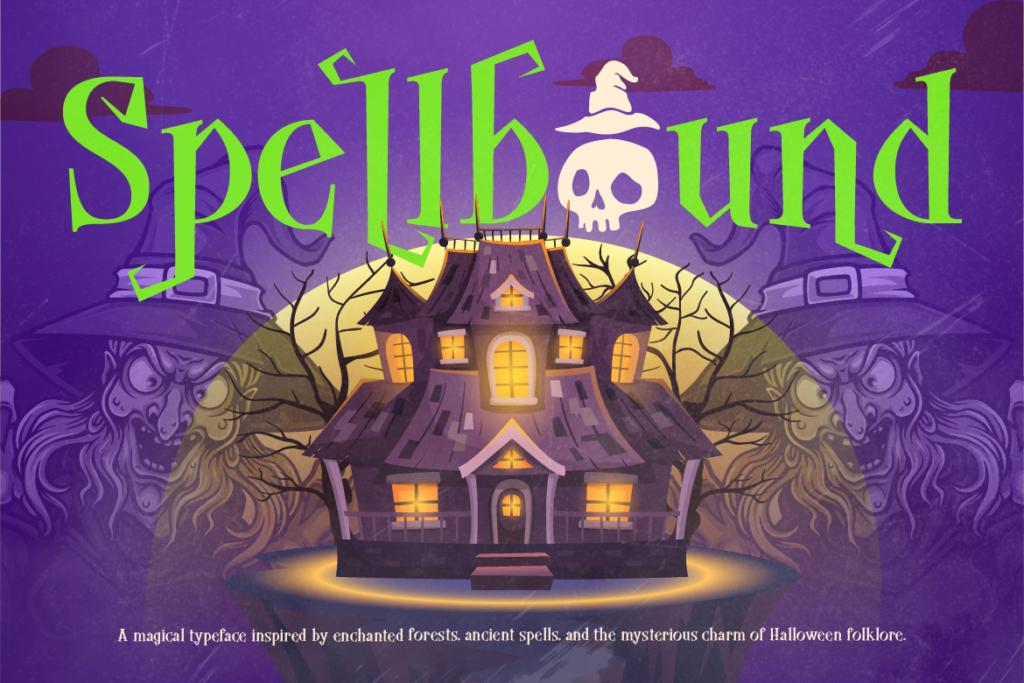
Seasonal flyers require bold, expressive headlines that communicate the theme instantly. A playful Halloween font like Madwitch features sharp, uncanny character shapes. For example, it works wonderfully for night club event flyers, haunted house posters, and seasonal social media banners.
2. Dark Blackletter Fonts for Mysterious Packaging
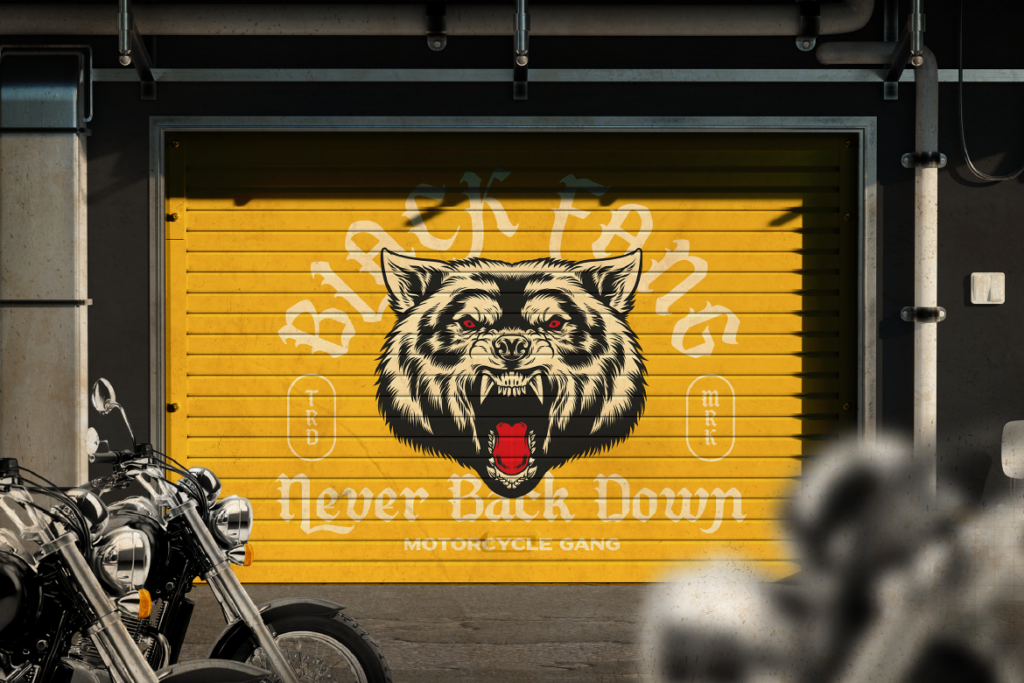
If your brand needs a more dramatic, gothic tone, consider a blackletter font like Reblade. Its sharp angular strokes evoke medieval mystery and dark fantasy. Consequently, it is an ideal choice for craft beer labels, autumn candle packaging, and gothic apparel lines.
3. Vintage Circus Fonts for Retro Horror Vibes
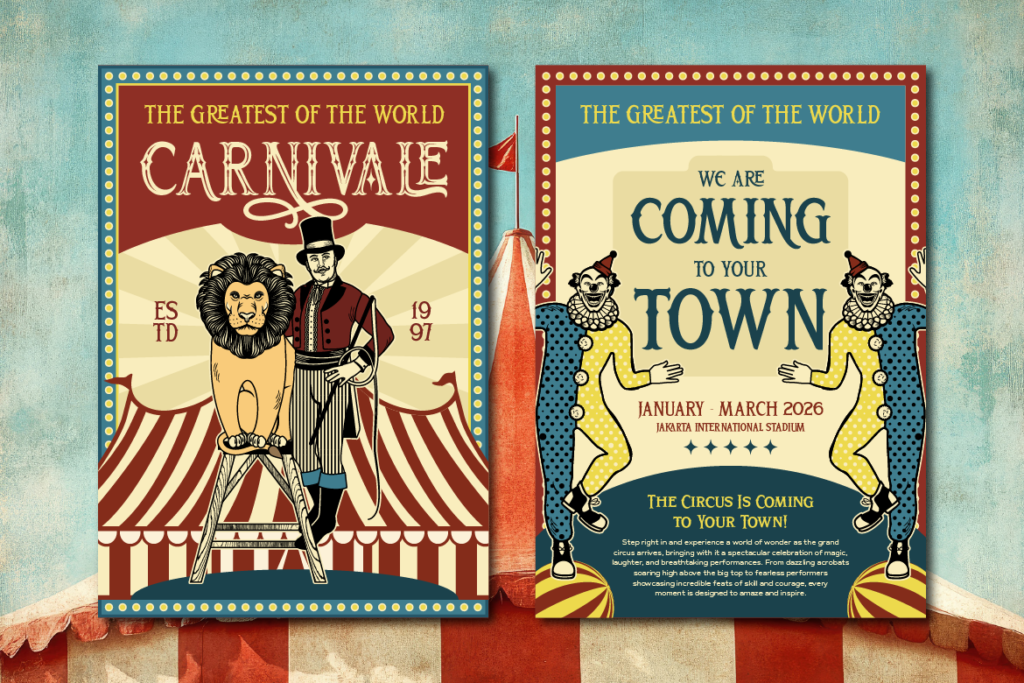
Retro horror themes are immensely popular in modern pop culture. Using a vintage display font like Broteli gives your graphics a mysterious carnival aesthetic. Combine it with distressed textures and dark orange background colors to complete the classic vintage horror look.
Tips for Styling Seasonal Typography
To keep your dark-themed graphics readable:
- Use high-contrast color combinations, such as bright orange or neon green text on dark charcoal backgrounds.
- Keep long explanatory text in a simple, clean font so your audience can read event details easily.